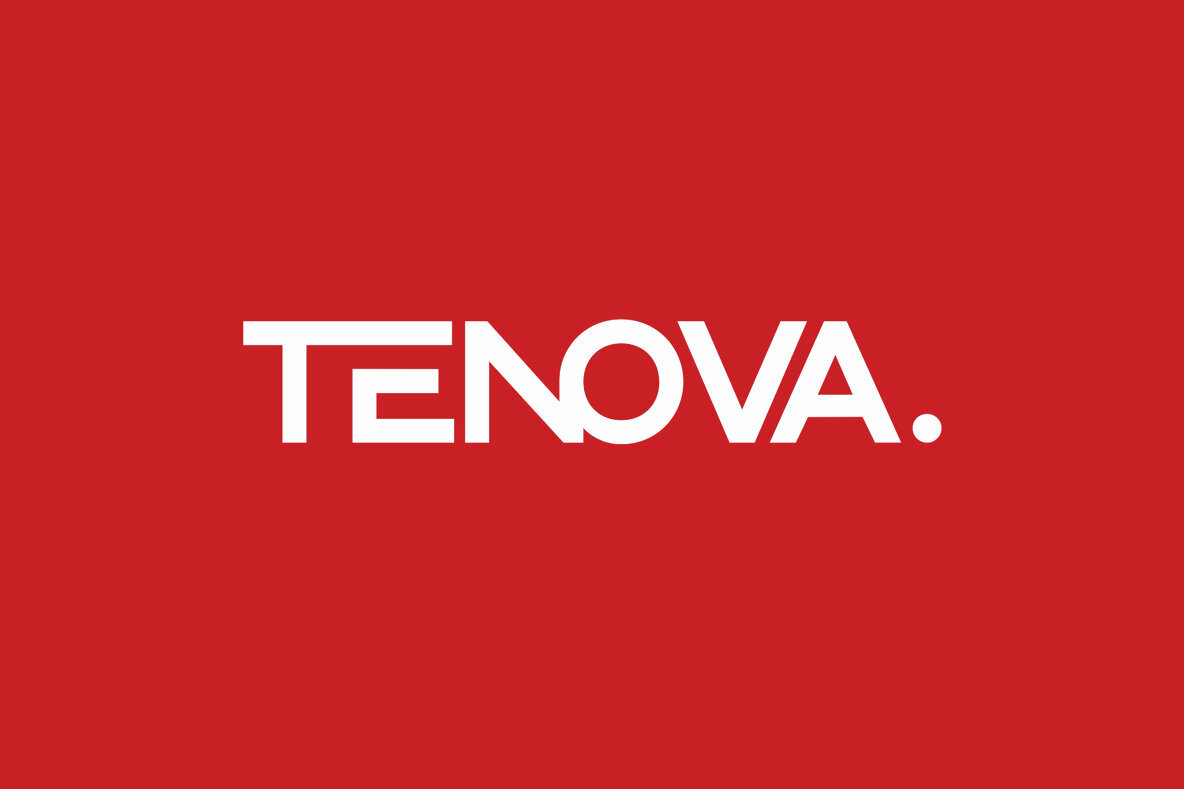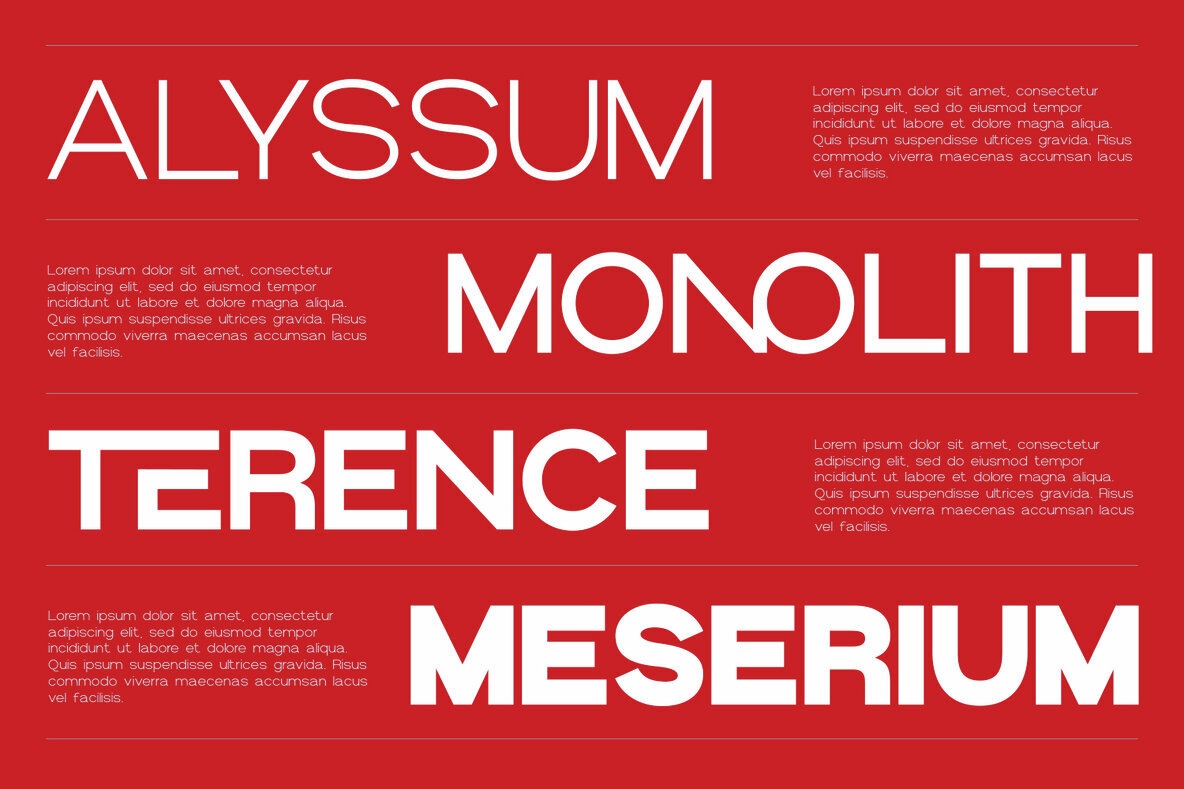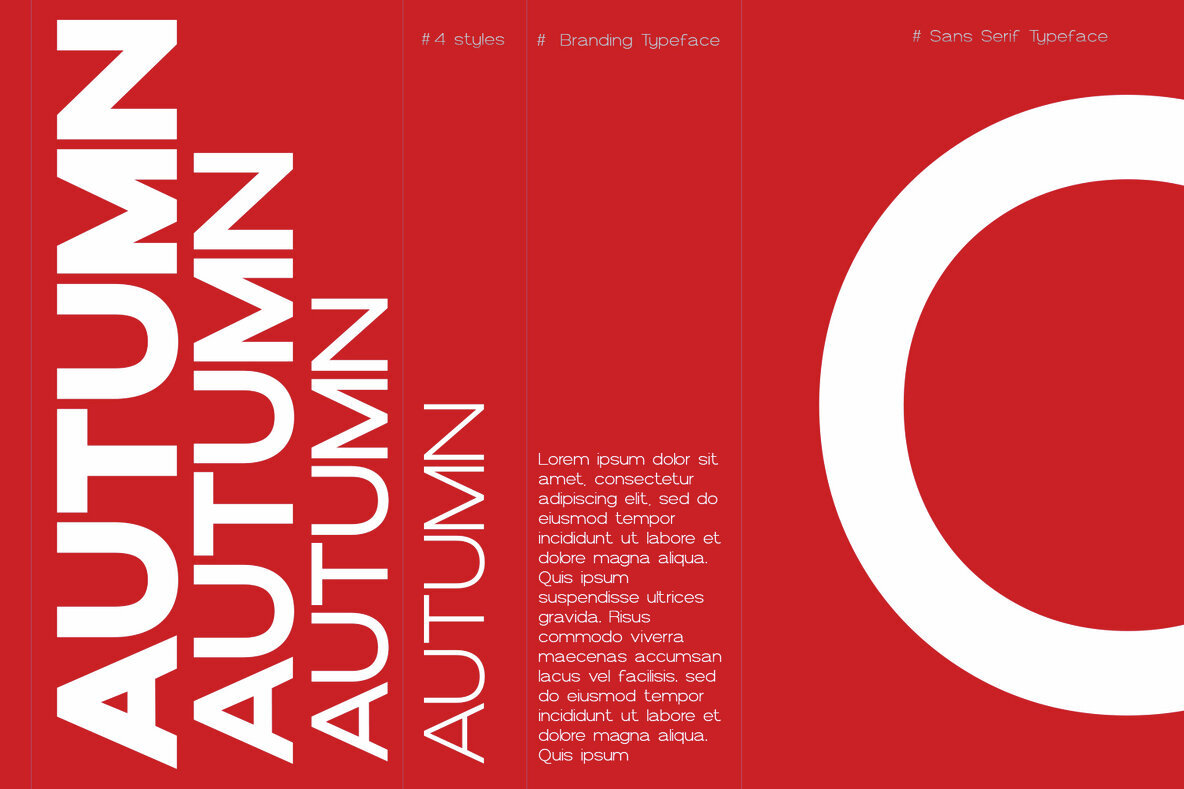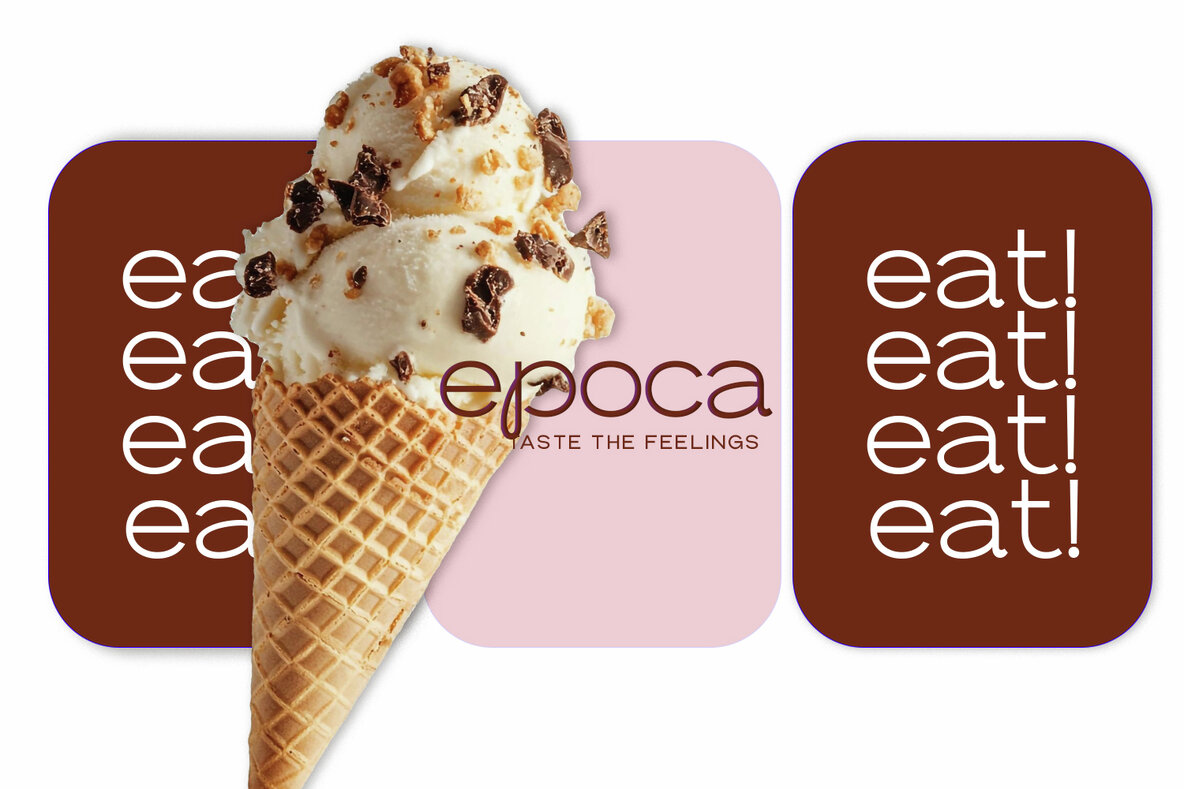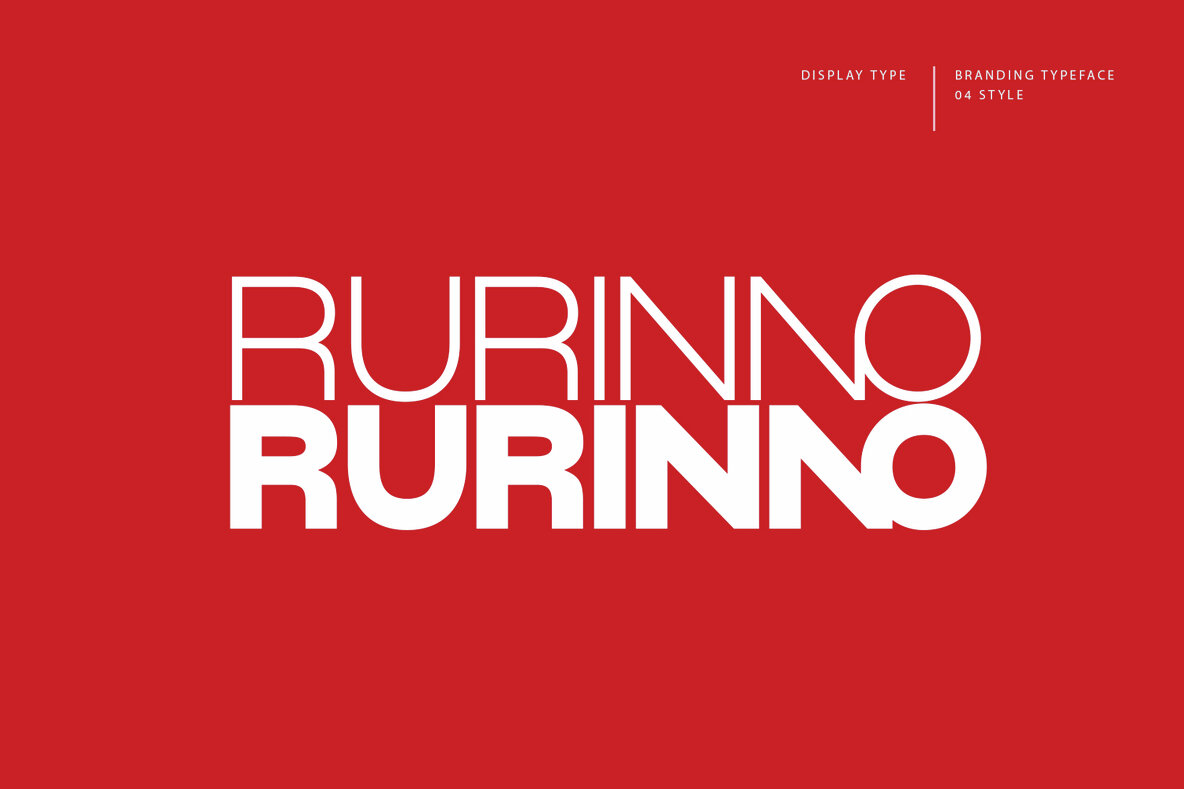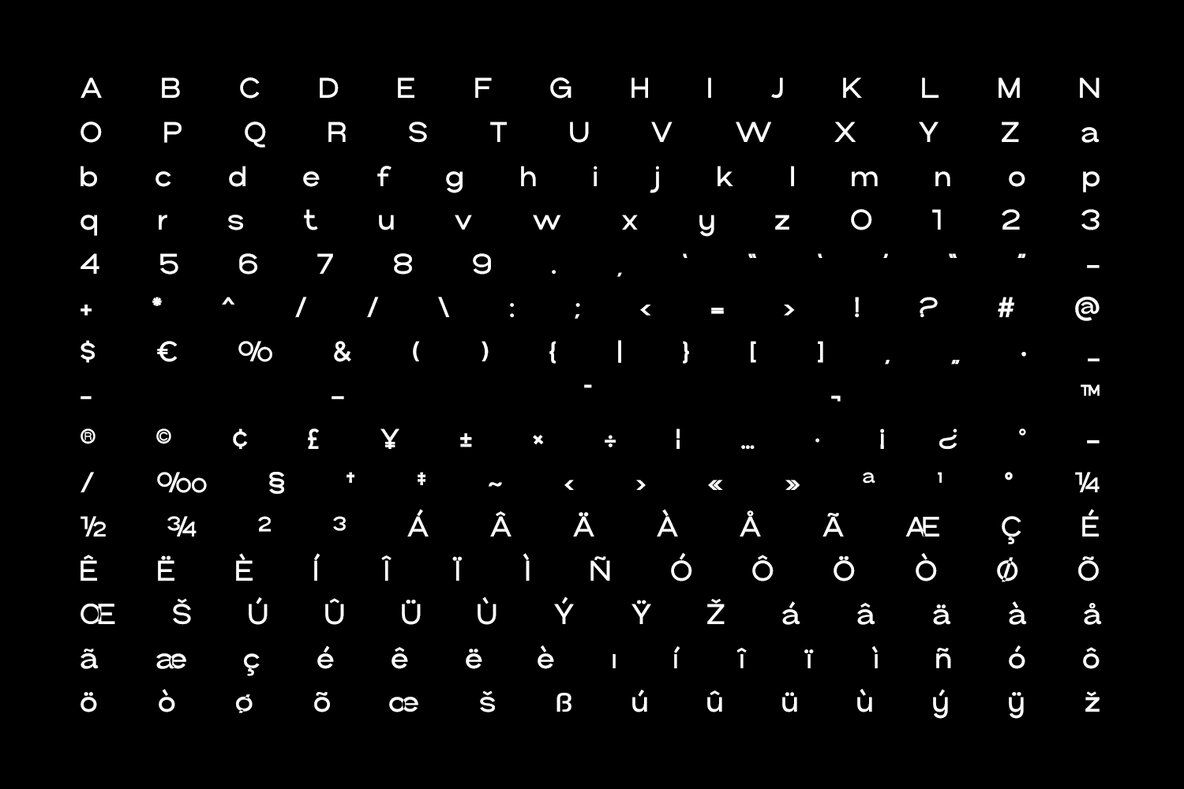
Tenova Font
Tenova Display offers a distinctive typeface imbued with elegance and versatility. Designed for a wide spectrum of applications including branding, headlines, and posters, Tenova Display presents a refined aesthetic with controlled letterforms and sleek modern elements. Its appeal extends from magazine layouts to cinematic experiences, making it a staple in any designer’s toolkit. Characterized by a unique blend of minimalism and warmth, Tenova Display ensures readability without compromising on visual impact. The font family boasts impressive adaptability through its assortment of weights, allowing creative exploration across various design mediums. Features:Tenova Display: Elegant Typeface for Modern Designs